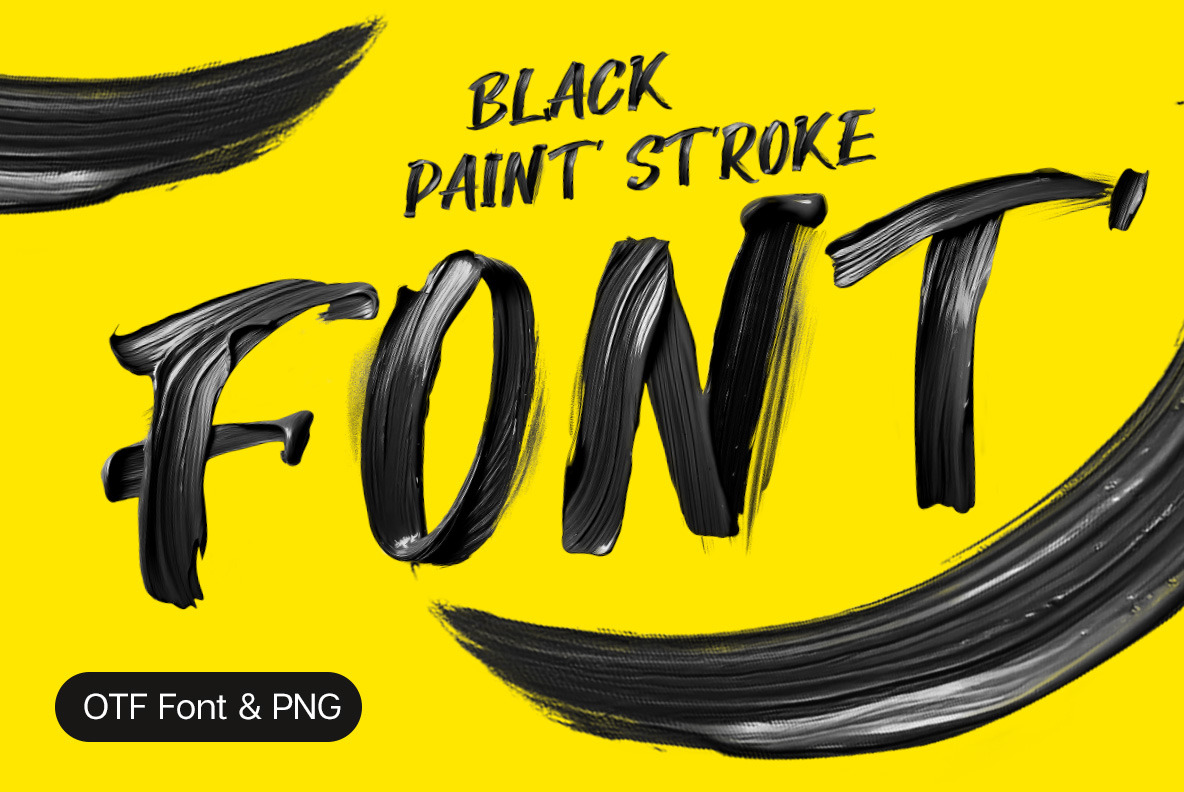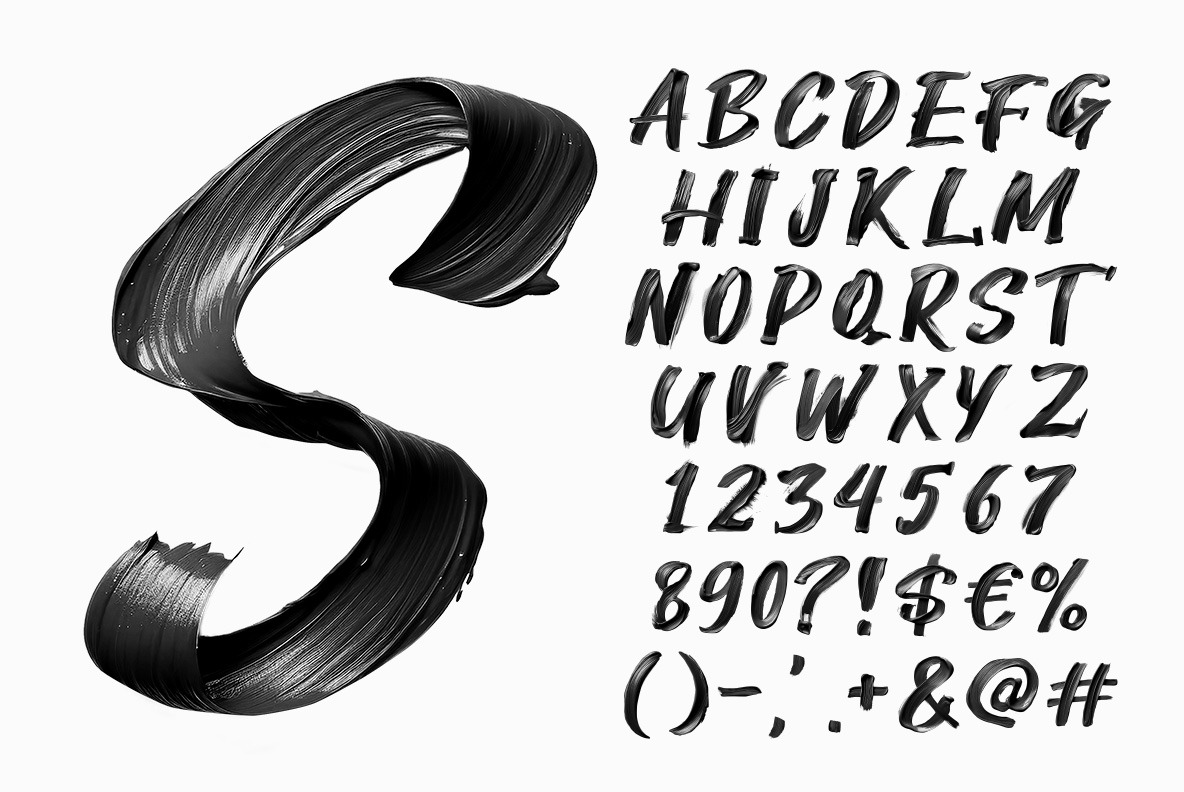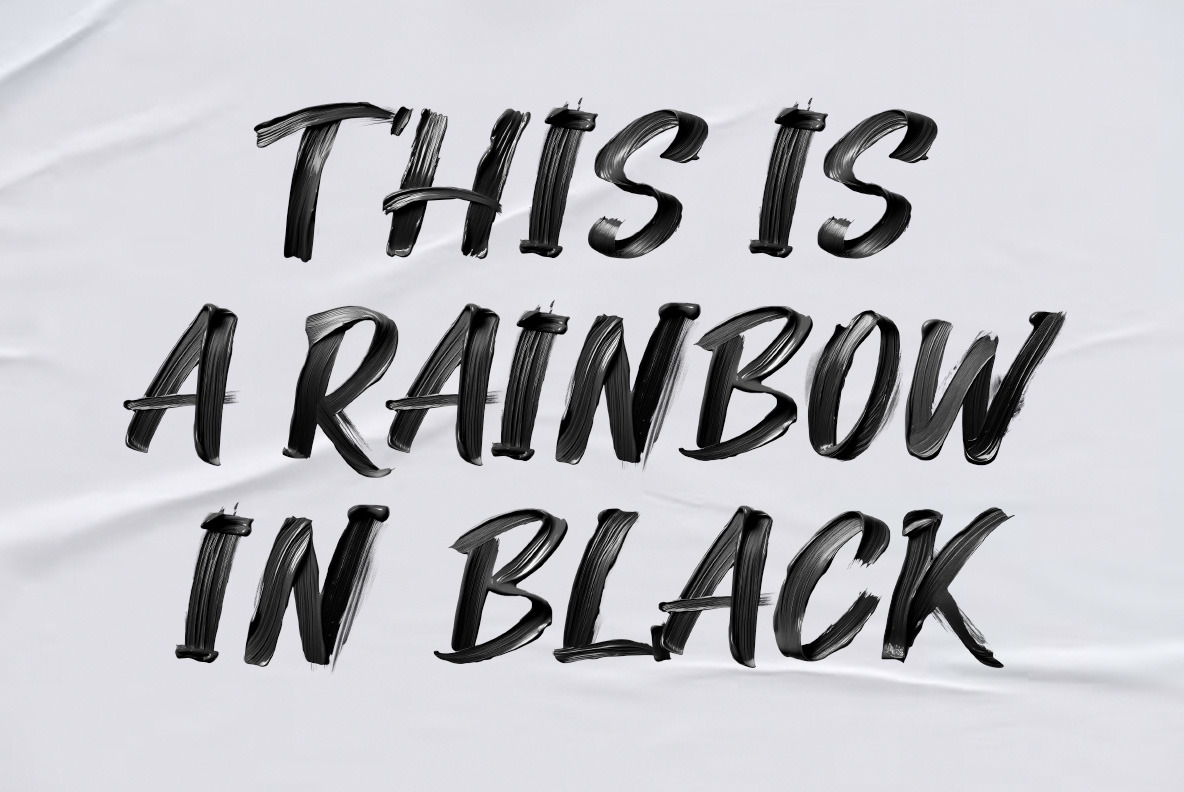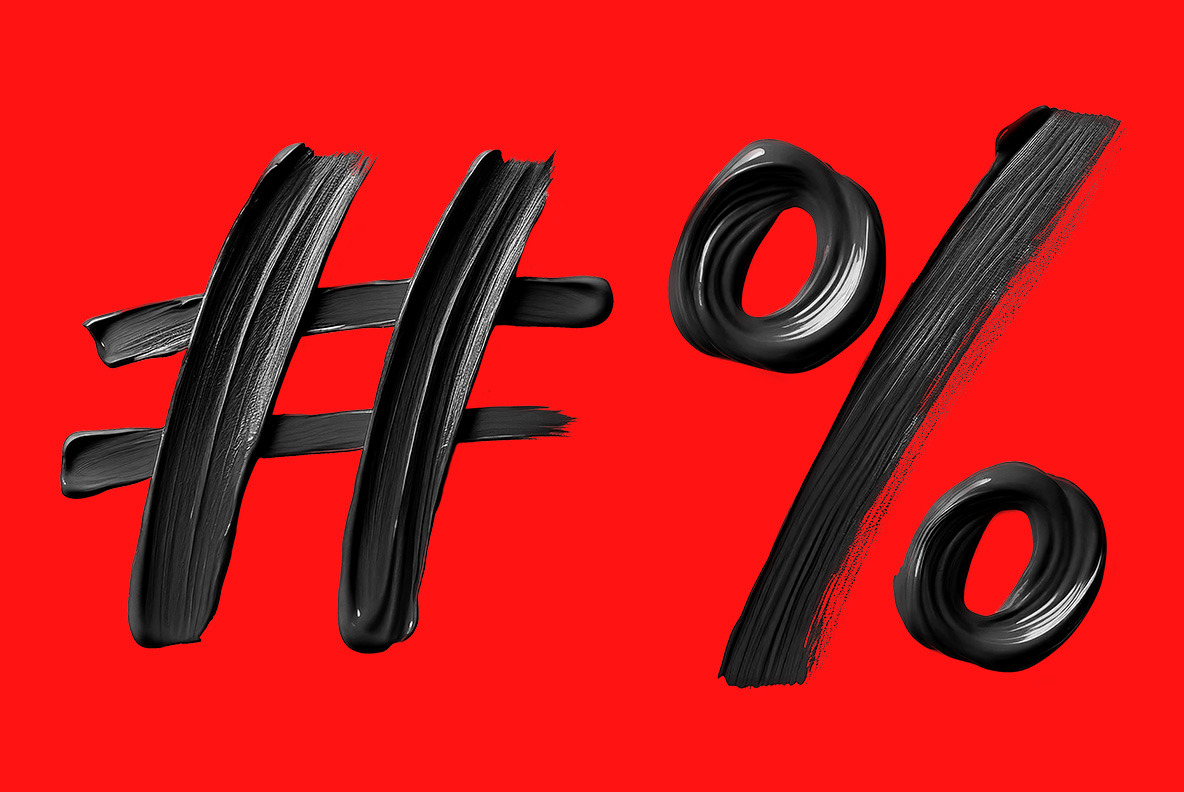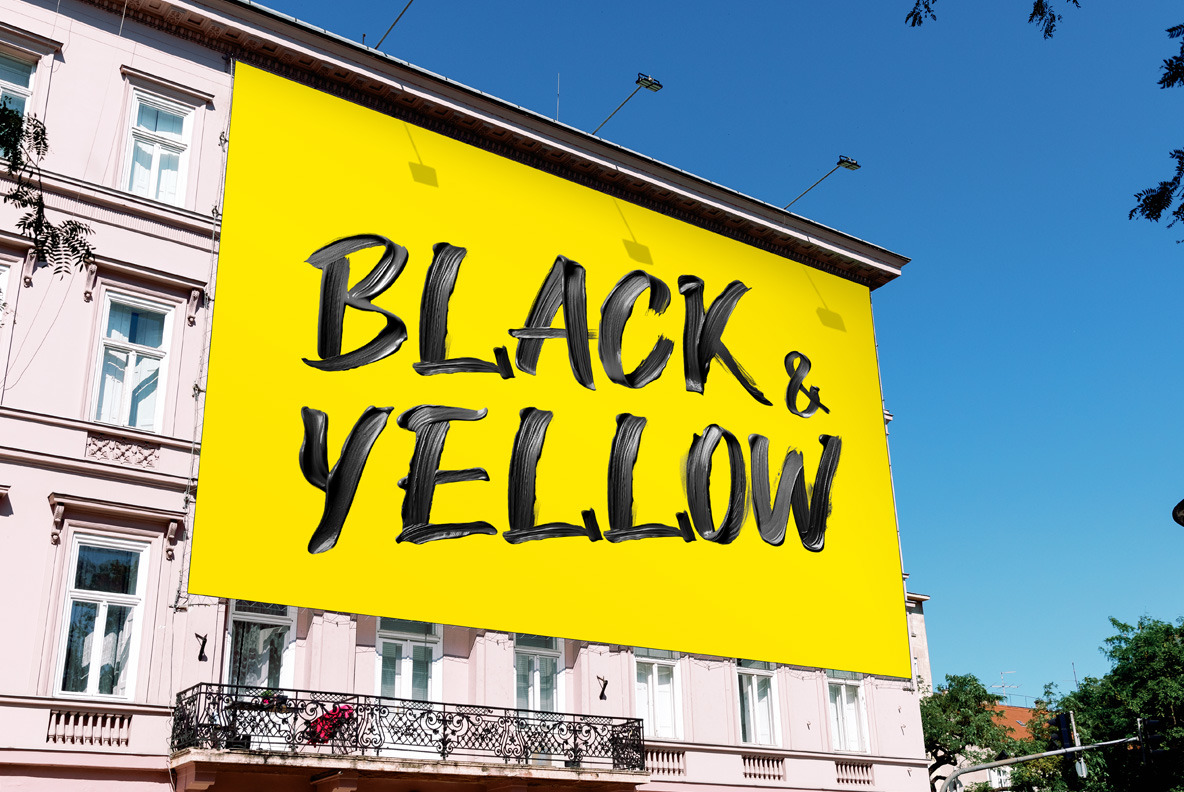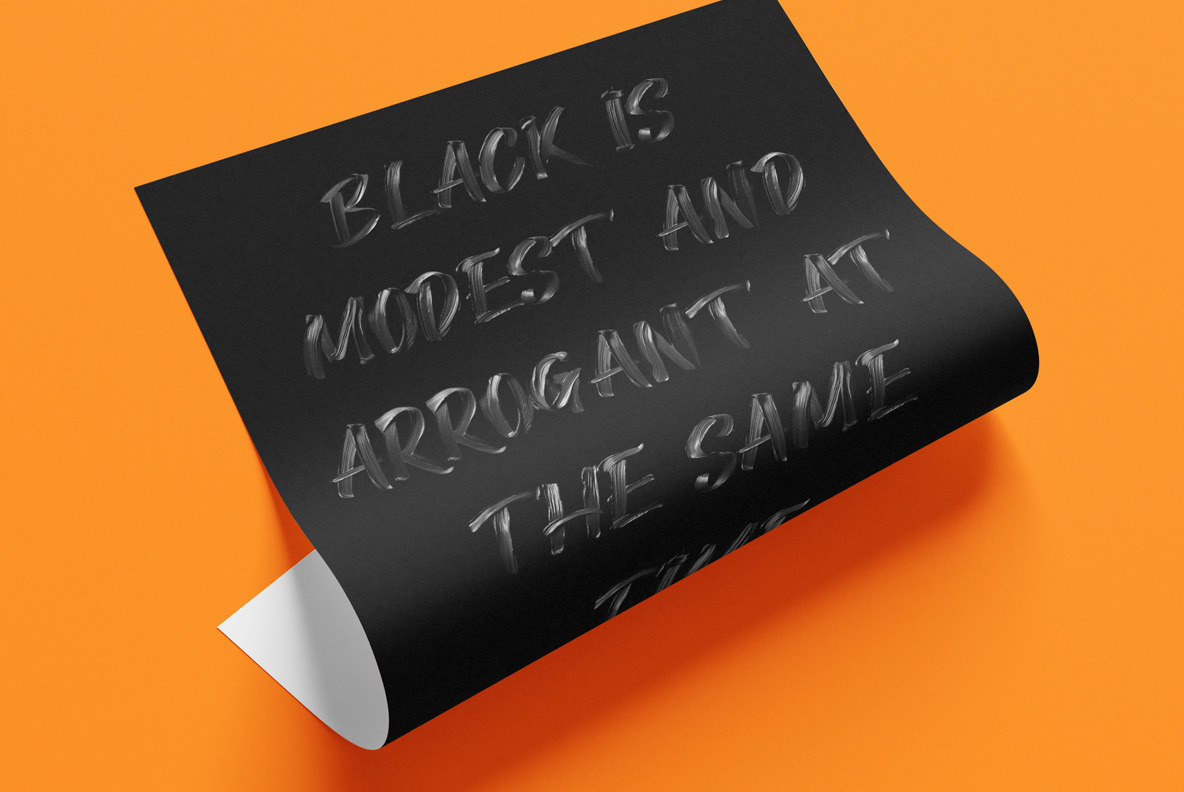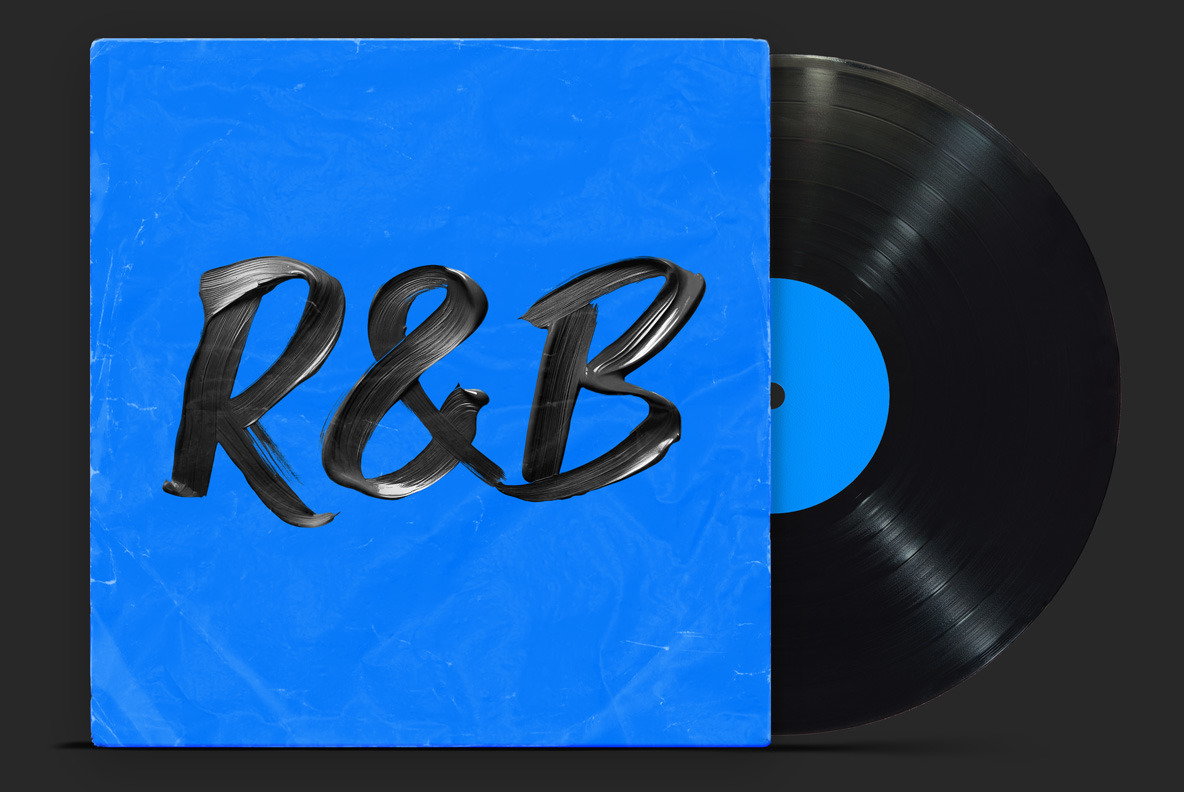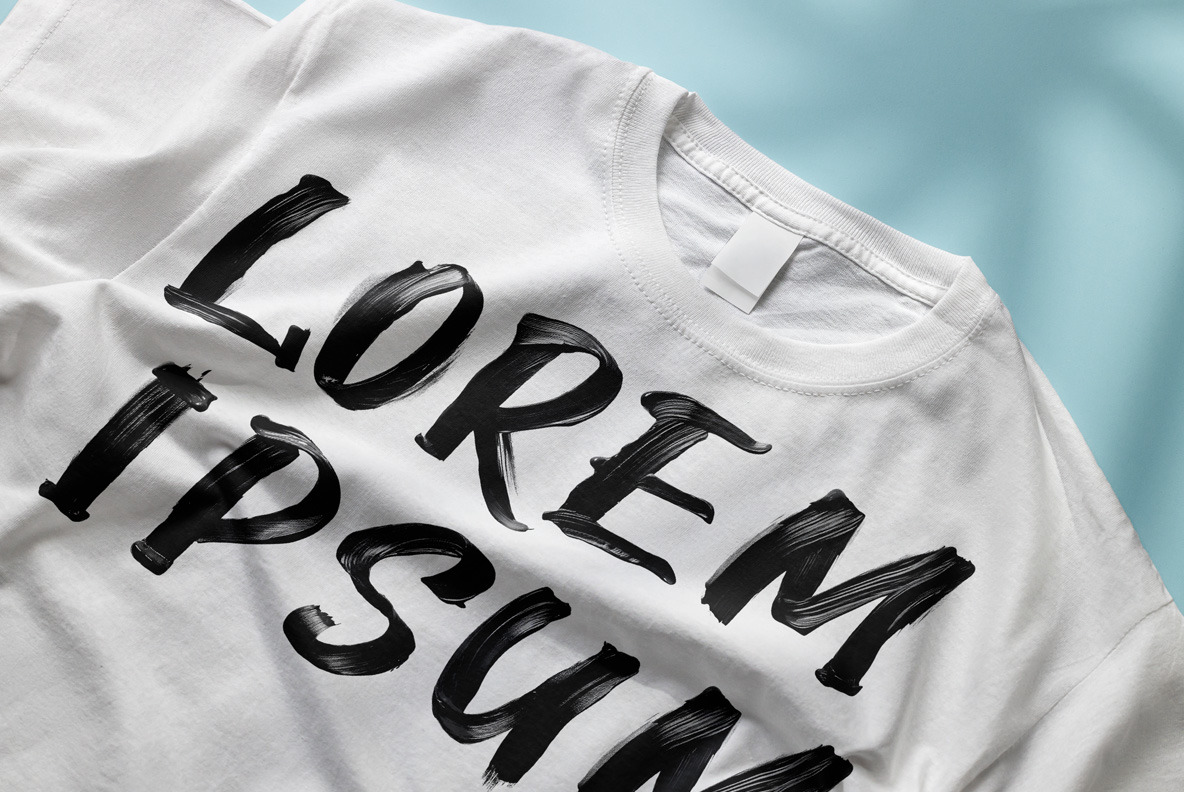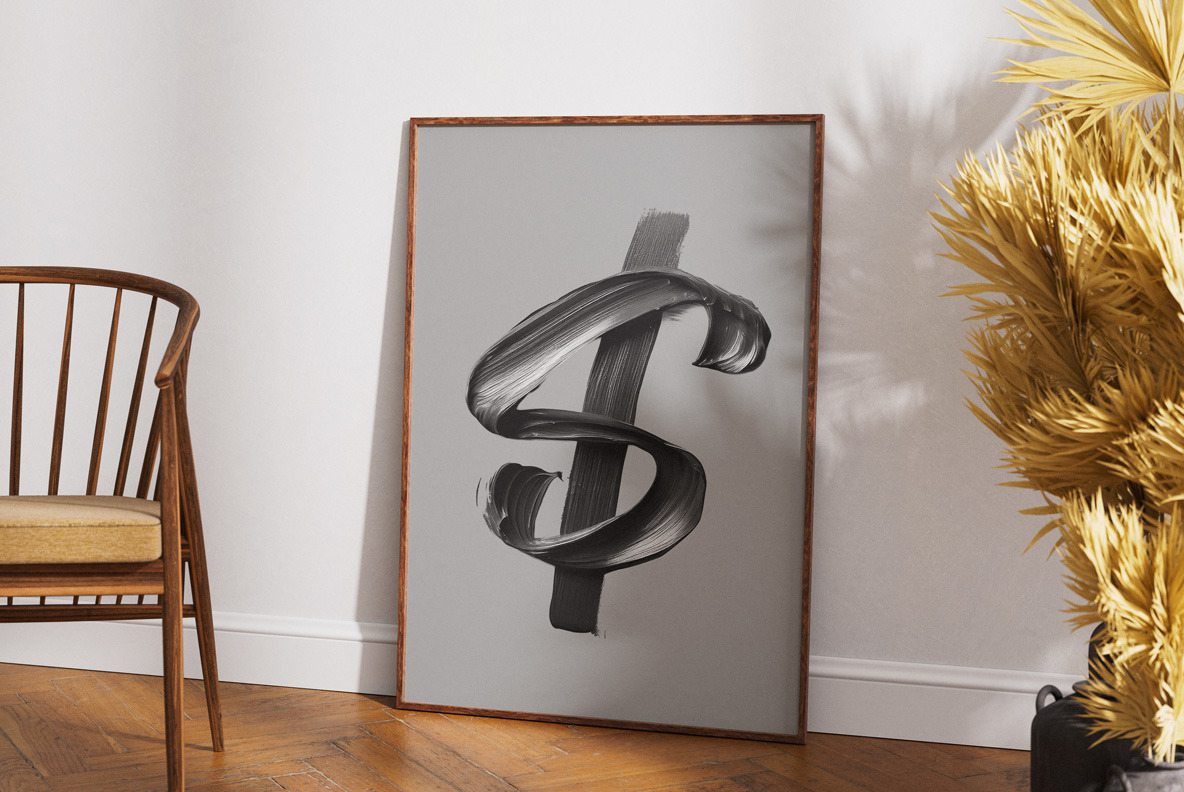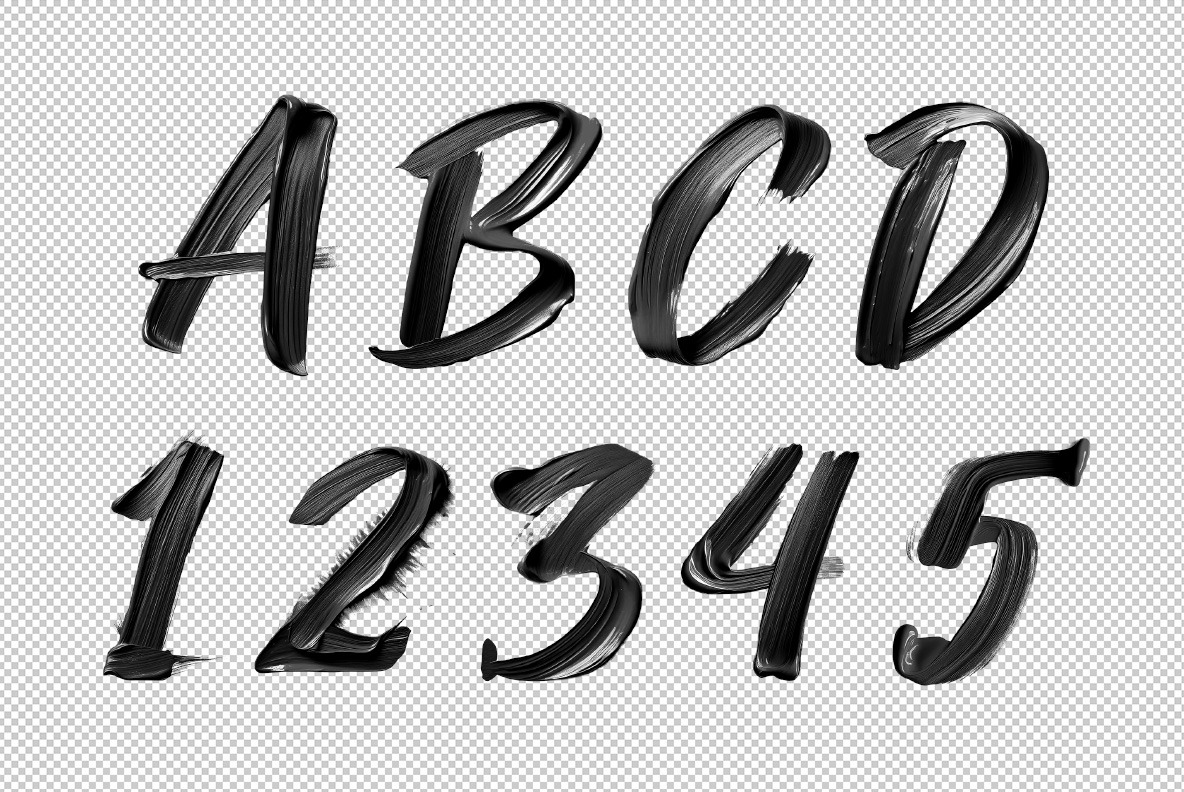
Black Paint Stroke Font
The Black Paint Stroke Font features bold, expressive letters resembling hand-painted brushstrokes. Its rough, textured appearance adds an artistic and dynamic flair, perfect for creative projects, posters, or edgy designs. This high-impact, visually striking font makes every letter feel like a powerful, handcrafted statement.